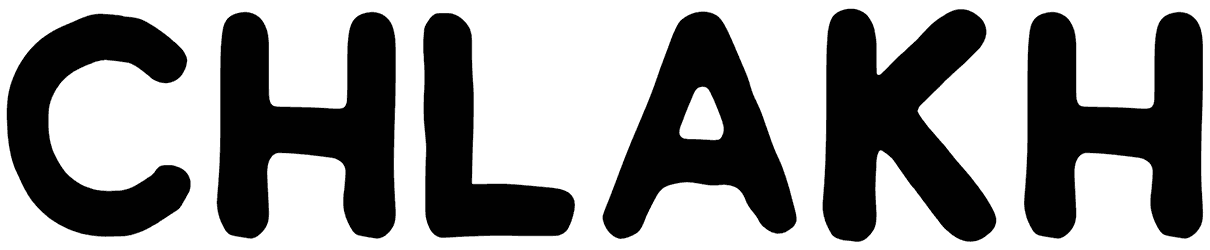
Chlakh Font
Chlakh is a banner font that works great for generating logos and labels and also graphic design all-around, including T-shirt printing and food packaging.
Chlakh as a font has a comic appearance, which will also give your work a slightly joyful air, making up for the lack of lowercase characters. It’s up to you to decide whether to maintain the status quo or deviate from it. Visit our growing library of fonts.
Chlakh – hand drawn retro inspired typeface.
Chlakh is perfect for creating retro logos, badges, labels. However, the use of this font is not limited to just logos. It’s also suitable for t-shirt prints, food packaging, business cards, flyers, posters, ads, restaurant menus, signs, typography design, quotes and any graphic design.